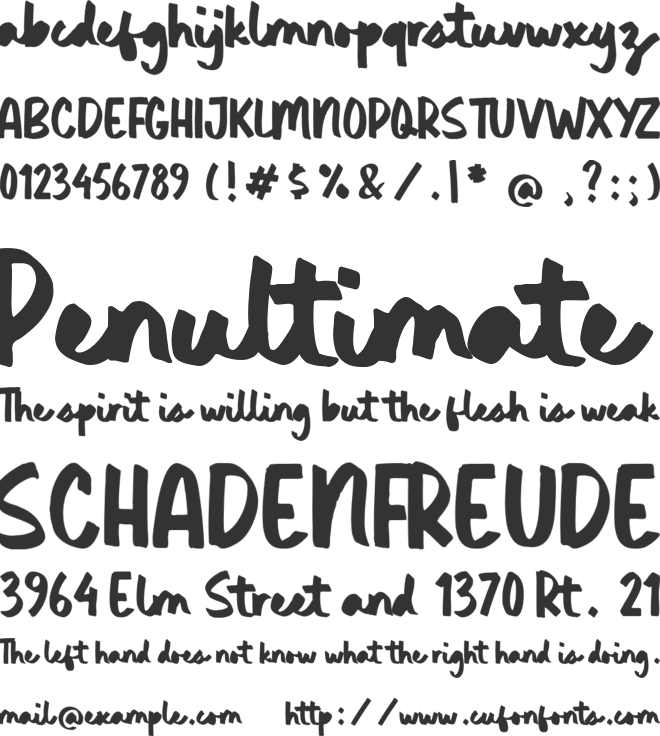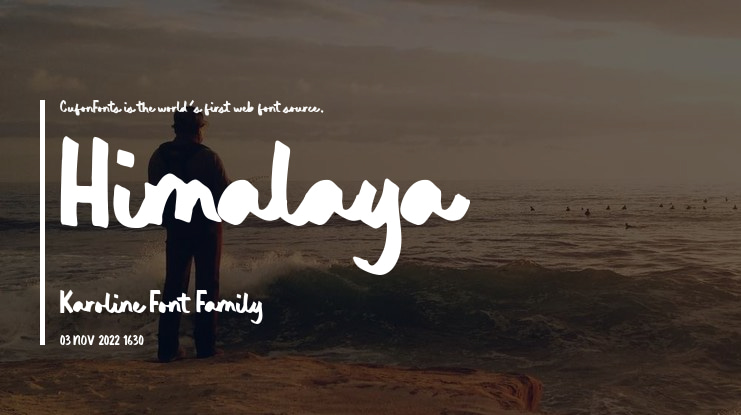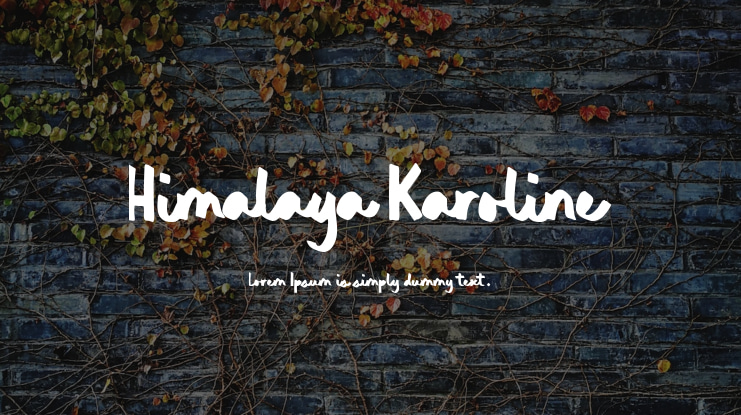
**Introducing Himalaya Karoline by Timurtype Studio!**
Himalaya Karoline is a bold handwritten script font that gracefully blends elegance with strength. Characterized by its flowing, slightly rounded strokes and dynamic letterforms, this font marries the personal warmth of handwriting with a bold, confident aura. Perfect for headlines, branding, and creative projects, Himalaya Karoline provides an air of sophistication while maintaining a casual, approachable vibe. Its thick lines and smooth curves ensure it is both striking and easy to read, making it a standout choice for any design.